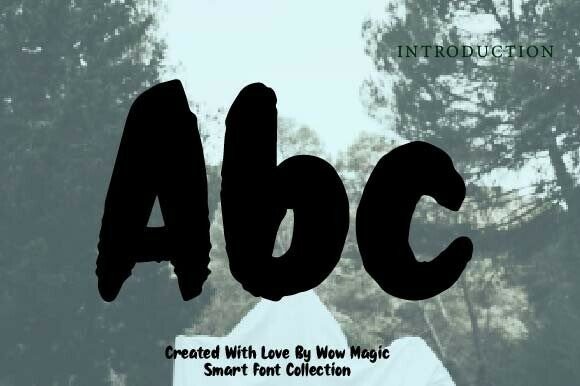
Unleash the Horror with Ghost Region Font: A Bold and Haunting Display Font
Are you looking for a font that can add a touch of horror and suspense to your designs? Look no further than Ghost Region, a bold and eerie brush display font that is perfect for creating spine-tingling artwork. Inspired by the dark and raw aesthetic of horror movie titles and spooky visual effects, Ghost Region is a typeface that delivers a dramatic and unsettling presence that instantly captures attention.
The Inspiration Behind Ghost Region
Ghost Region is a font that is deeply rooted in the horror genre. Its design is inspired by the eerie hand-painted lettering often seen in horror movie titles, as well as the spooky visual aesthetics of haunted houses and creepy landscapes. The font’s creator aimed to capture the essence of the horror genre and put it into a typeface that would be perfect for designers and crafters looking to add a touch of fear and suspense to their work.
Key Features of Ghost Region
So, what makes Ghost Region such a unique and effective font? Here are some of its key features:
- Bold and Expressive: Ghost Region is a bold font with a strong personality. Its expressive handcrafted style makes every word feel intense, mysterious, and full of suspense.
- Rough Brush Texture: The font features a rough brush texture that gives it a raw and haunting feel. This texture is perfect for creating artwork that needs to feel organic and hand-crafted.
- Uneven Strokes: The uneven strokes in Ghost Region add to its eerie and unsettling feel. This feature makes the font perfect for creating artwork that needs to feel dynamic and attention-grabbing.
- Perfect for Horror and Spooky Designs: Ghost Region is specifically designed for horror and spooky designs. It’s perfect for Halloween designs, horror posters, thriller book covers, spooky branding, haunted event promotions, social media graphics, and cinematic title work.
Use Cases for Ghost Region
Ghost Region is a versatile font that can be used in a variety of contexts. Here are some use cases where the font really shines:
- Halloween Designs: Ghost Region is perfect for creating spooky Halloween designs, such as pumpkin carvings, haunted house posters, and creepy party invitations.
- Horror Posters: The font is ideal for creating eye-catching horror posters that need to grab attention and evoke a sense of fear and suspense.
- Thriller Book Covers: Ghost Region can be used to create thriller book covers that need to convey a sense of intensity and suspense.
- Spooky Branding: The font can be used to create spooky branding for haunted houses, horror-themed restaurants, and other businesses that need to evoke a sense of fear and excitement.
Tips for Using Ghost Region
Here are some tips for using Ghost Region effectively in your designs:
- Use it Sparingly: Ghost Region is a bold font that can be overwhelming if used excessively. Use it sparingly to create emphasis and add a touch of horror and suspense to your designs.
- Pair it with Other Fonts: Ghost Region can be paired with other fonts to create a unique and eye-catching design. Try pairing it with a clean sans-serif font to create contrast and add visual interest.
- Experiment with Colors: Ghost Region looks great in bold and bright colors, but it can also be used in more muted and pastel colors to create a creepy and unsettling feel.
Ghost Region is a bold and haunting display font that is perfect for designers and crafters looking to add a touch of horror and suspense to their work. With its rough brush texture, uneven strokes, and expressive handcrafted style, Ghost Region delivers a dramatic and unsettling presence that instantly captures attention. Whether you’re creating Halloween designs, horror posters, thriller book covers, or spooky branding, Ghost Region is a font that is sure to make your work stand out.